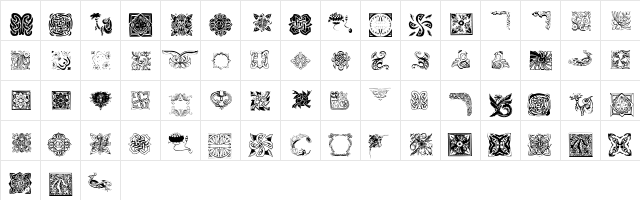
TypoOrnaments Regular Font Preview
TypoOrnaments Regular
TypoOrnaments Regular Font Details
Design Context for TypoOrnaments Typeface
TypoOrnaments brings ornamental detail and strong personality to headlines and identities, where visual impact matters more than quiet functionality.
Font Pairing: Pair with a clean neutral sans-serif for body copy to let TypoOrnaments's character lead without overwhelming the composition.
Pro Tip: Use TypoOrnaments exclusively at display sizes — it was designed to be seen, not read at length. Let a neutral companion handle body copy.